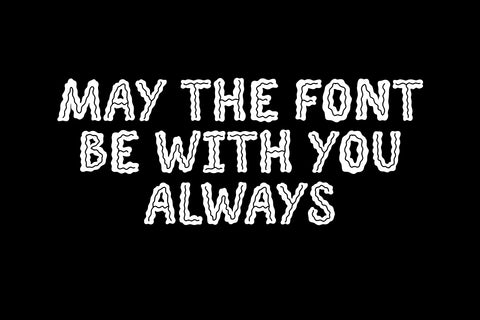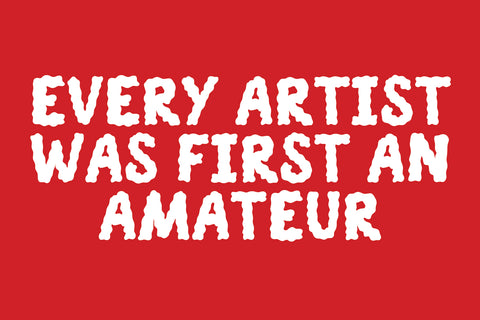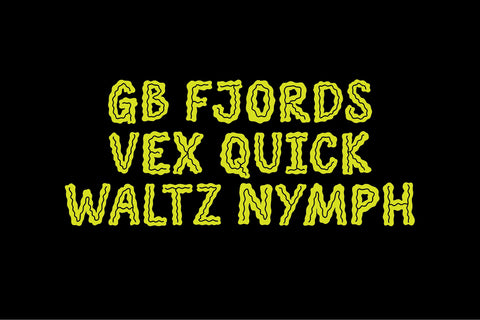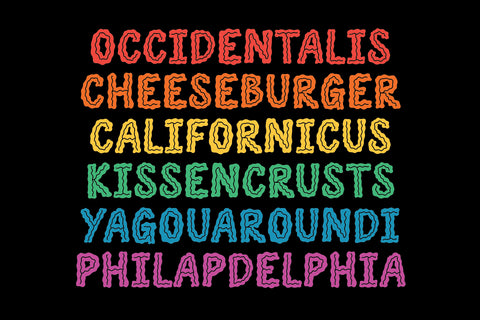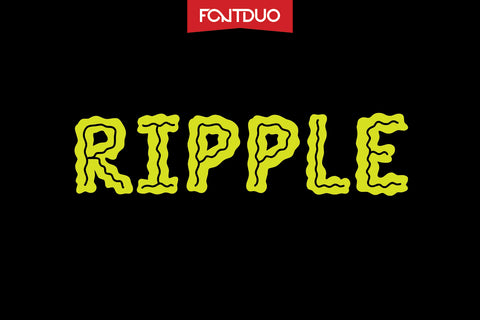
Ripple Wavy Hand-Lettered Inline Font
Ripple FD is a beautifully crafted wavy hand-lettered inline typeface, designed to bring a fluid and dynamic aesthetic to your creative projects. Every curve and wave of this font has been meticulously designed, making it perfect for a wide range of applications, from playful and whimsical designs to elegant and modern compositions.
Unique Hand-Lettered Design: Ripple FD captures the essence of organic, flowing lines while offering a distinctive hand-drawn character that sets it apart from other fonts. It’s perfect for adding a personal, artistic touch to your work.
Versatile Usage: This typeface is ideal for everything from branding, logo design, and product packaging to wedding invitations, posters, and social media graphics. Its unique style works beautifully in both digital and print mediums.
Ripple FD Regular: The classic wavy inline style, perfect for adding a touch of elegance and fluidity to your designs.